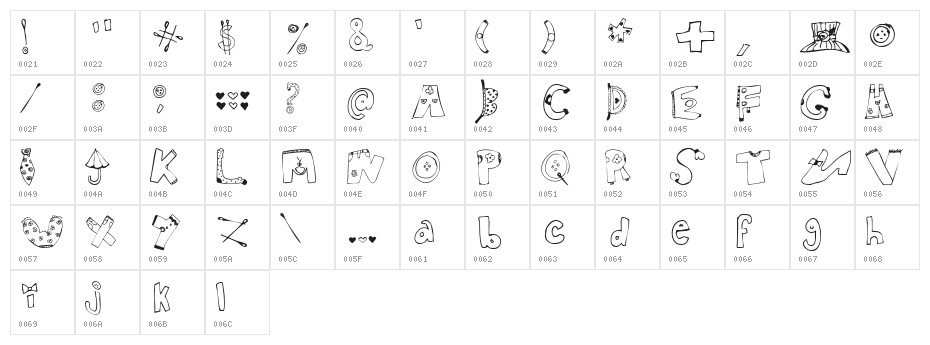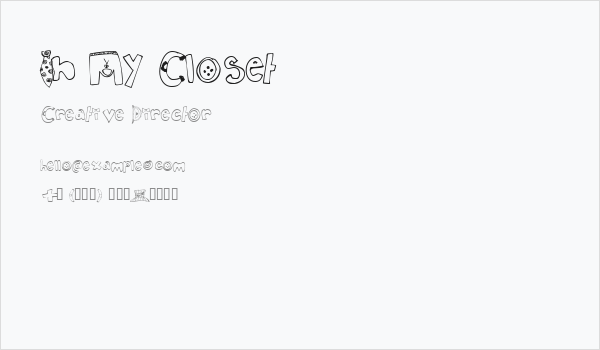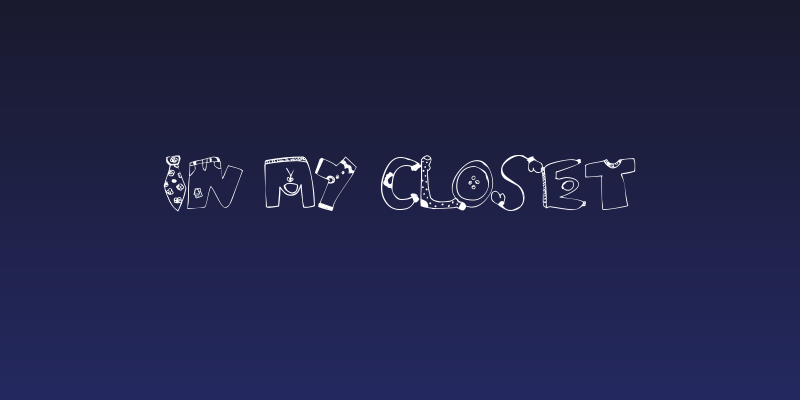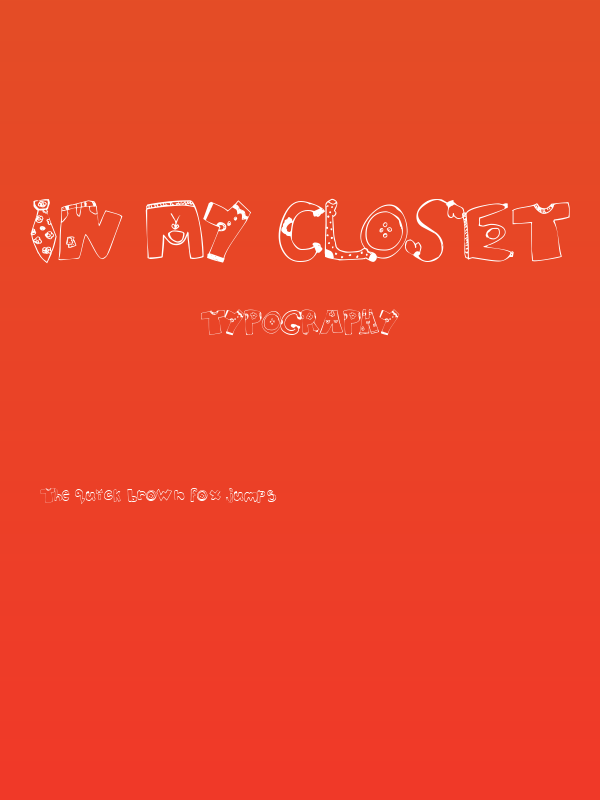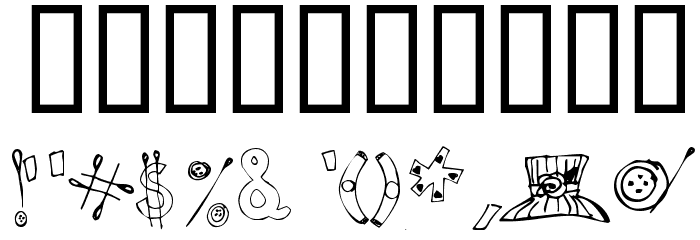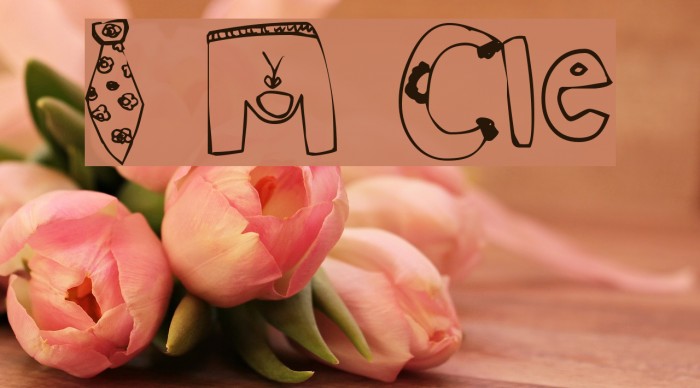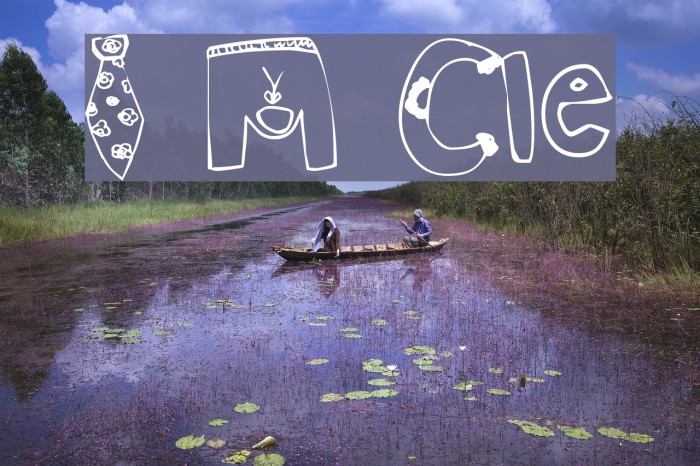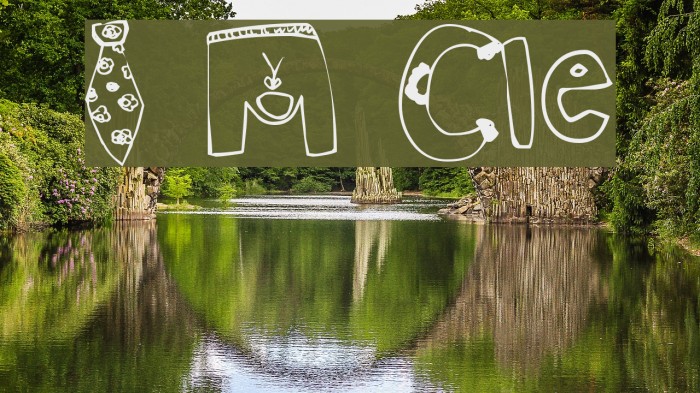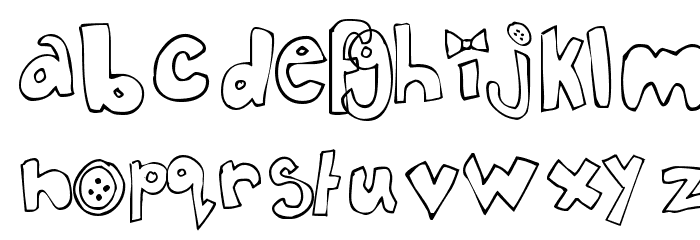
In My Closet Font
In My Closet Description
This playful and whimsical font features a variety of decorative elements within each character, creating a lively and dynamic appearance. Each letter is uniquely styled with patterns such as polka dots, stripes, and abstract shapes, giving it a hand-drawn and artistic feel. The uppercase and lowercase letters maintain a consistent theme, with bold outlines and intricate details that make each character stand out. The numbers are represented as bold rectangles, adding a modern twist to the overall design. Special characters are creatively illustrated, further enhancing the font's quirky and imaginative style.
| Overall Style | Playful, Artistic, Whimsical |
| Proposed Projects | Ideal for children's books, playful branding, creative posters, and artistic projects. |